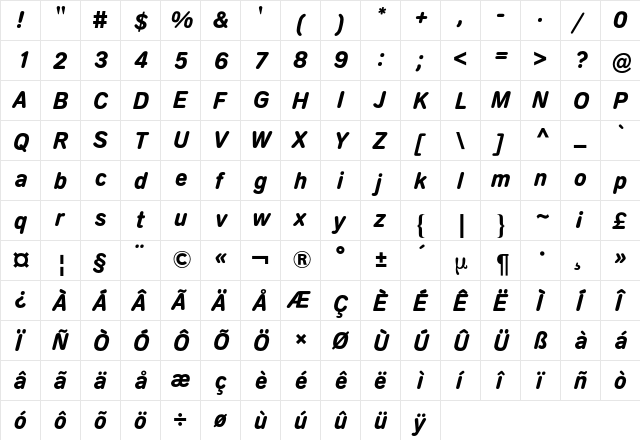
Aral-Type BQ Bold Italic
Design Context for Aral-Type BQ Typeface
Aral-Type BQ takes a measured approach to typography — its balanced proportions and neutral character make it a reliable workhorse for both digital and print work. Its italic angle brings a sense of urgency and motion to the letterforms. The heavy weight commands attention and anchors typographic hierarchies.
Pro Tip: Use Aral-Type BQ for emphasis, pull quotes, and subheadings where its slanted energy can add rhythm to the layout.